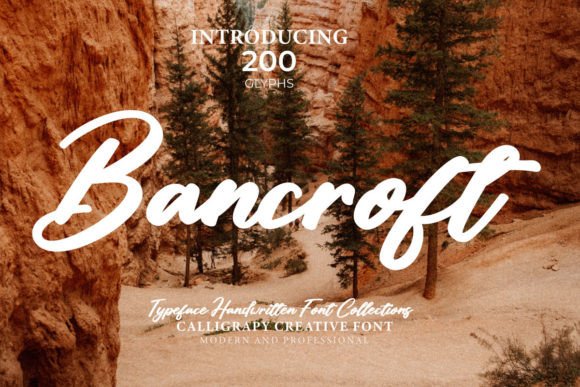
Introducing the Bancroft Font: From Elegant Invitations to Dazzling Designs
In the realm of typography, there lies an exquisite gem that captivates hearts with its enchanting charm: the Bancroft Font. Picture a world where your words dance across the page with a delightful flourish, where every letter is a work of art, and every design tells a captivating story. Inspired by the beauty of handwritten notes, the Bancroft Font weaves a tapestry of elegance and creativity that elevates your projects to new heights.
With its mesmerizing script style, the Bancroft Font transforms ordinary designs into extraordinary masterpieces. Each character is meticulously crafted, exuding a sense of artistry that breathes life into your creations. Imagine the wonder of your wedding invitations, adorned with the Bancroft Font, as they carry the promise of a magical celebration. Its flowing curves and graceful strokes evoke a sense of timeless elegance, ensuring that your special day is etched in the hearts of your guests forever.
Journey into the realm of social media, where the Bancroft Font emerges as a beacon of visual delight. Your posts and stories will shine with an aura of sophistication, captivating your audience with their enchanting allure. The Bancroft Font is the perfect companion for those seeking to create a lasting impact, whether it's promoting your brand, sharing captivating stories, or simply connecting with your loved ones.
Unlock the potential of your logos and advertisements with the Bancroft Font, transforming them into unforgettable visual experiences. Its bold presence cuts through the clutter, demanding attention and leaving an indelible mark on the minds of your customers. Whether you're designing product packaging or crafting stunning product designs, the Bancroft Font infuses your creations with a touch of luxury and distinction.
Step into the world of labels and photography, where the Bancroft Font adds an air of artistry to even the most mundane of objects. Let your product labels speak volumes with their refined elegance, while your photographs are elevated to new heights of visual storytelling. The Bancroft Font breathes life into every image, transforming it into a captivating narrative that draws the viewer in.